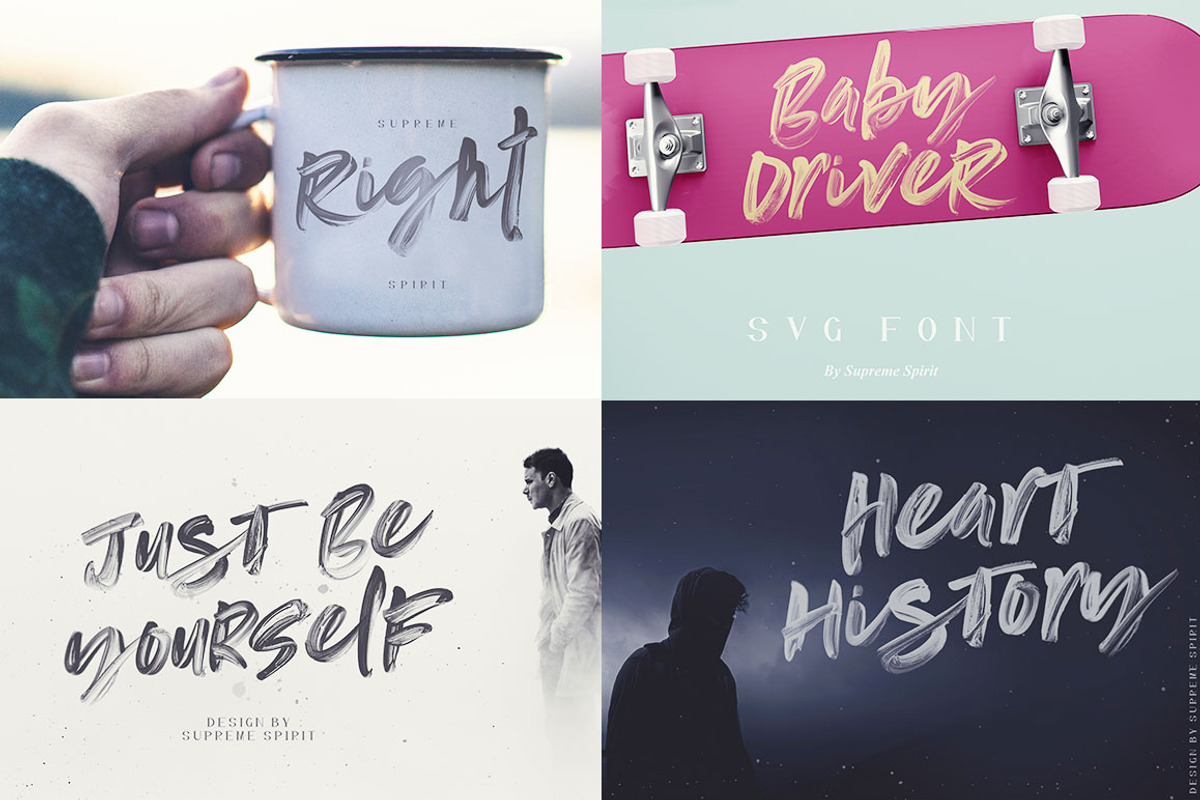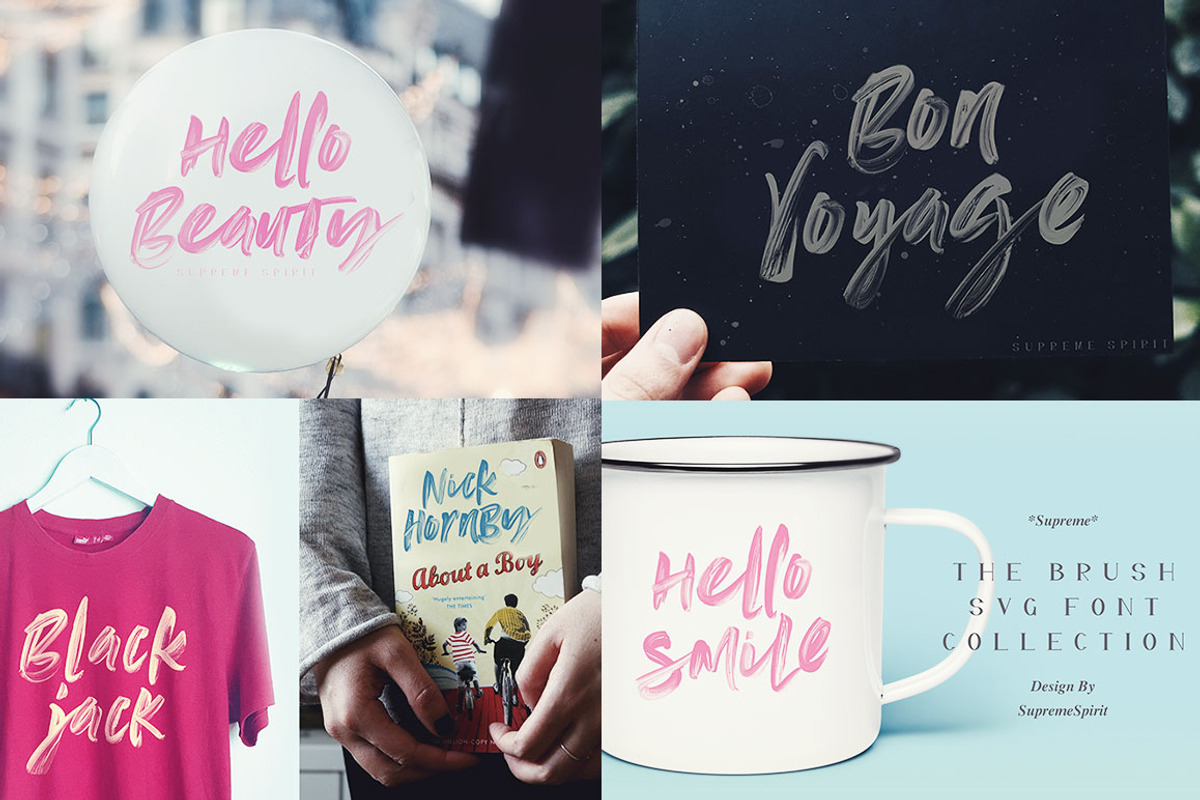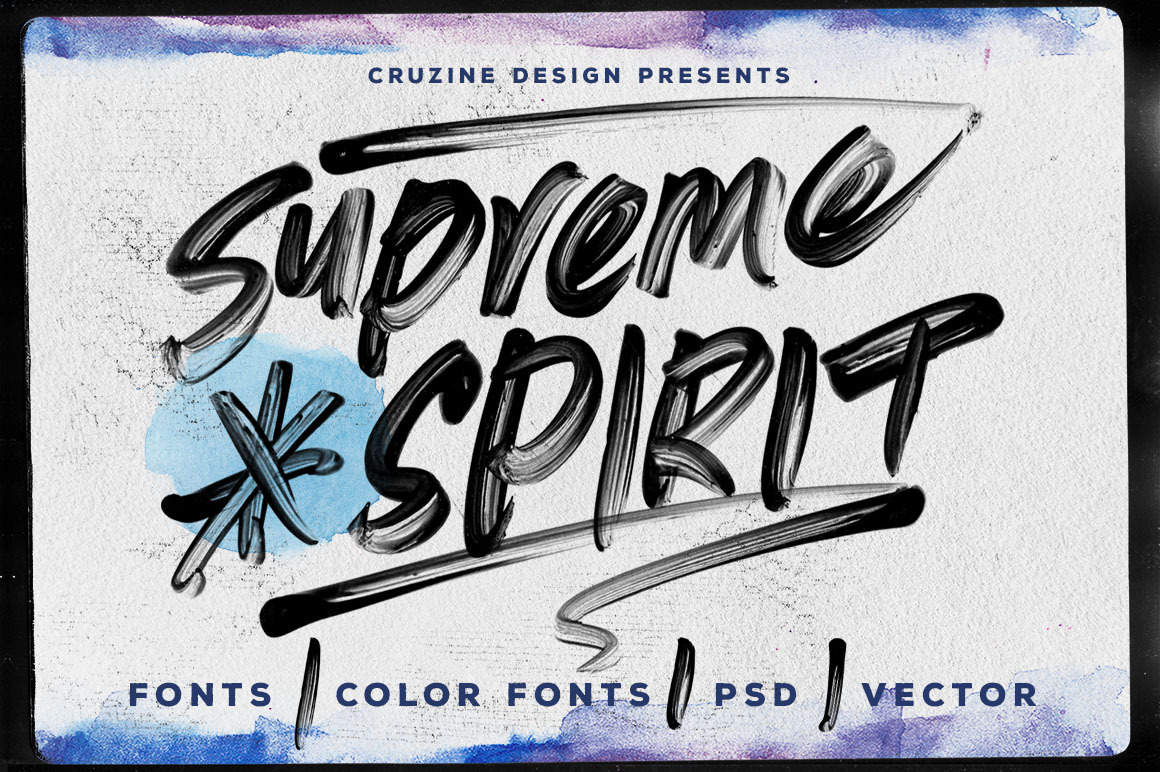
Supreme Spirit Brush Font
Brush or grunge style display font for your new projects. Great for grunge or artistic projects!
Looks great. Has a nice texture to it. Love the brush strokes. Looks even better when colored...bit of a PITA to do that though because you have to use either color overlay layer styles or color adjustment layers, but that's not Cruzine's fault - that's just the nature of working with this new kind of font. Overall this font looks great, has nice momentum to it, and comes with a large amount of alternate characters which will really go far with repeating letters and making titles look handmade. Very happy and worth the money.